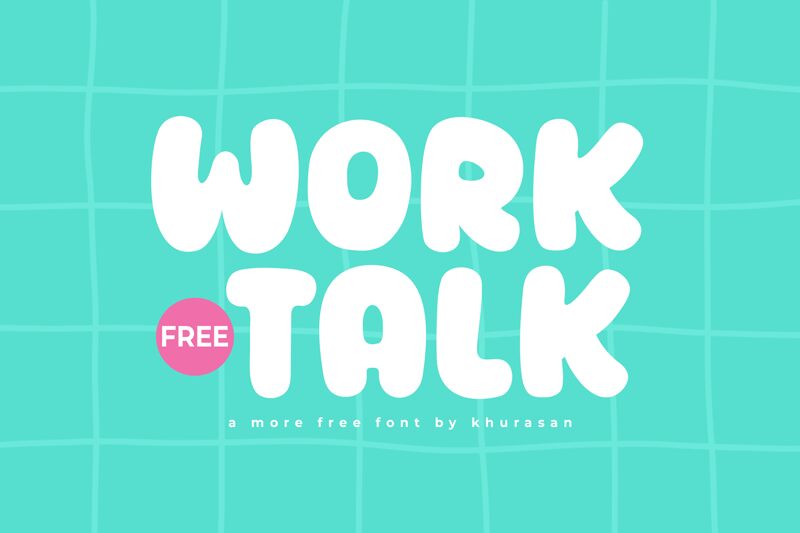
Worktalk
Worktalk font by Khurasan is a bold cartoon display font that features various sudden turns. The black rounded letters give this font a bold and imposing appearance suitable for short display texts. Worktalk is friendly, approachable, casual, and retro-inspired. It is also versatile since you can use it for just about any personal design project.
A free display typeface with playful features for posters, flyers, social media banners, CDs and book covers, headlines in magazines or newspapers, product labeling or packaging, T-shirt designs and branding projects to name a few examples only.